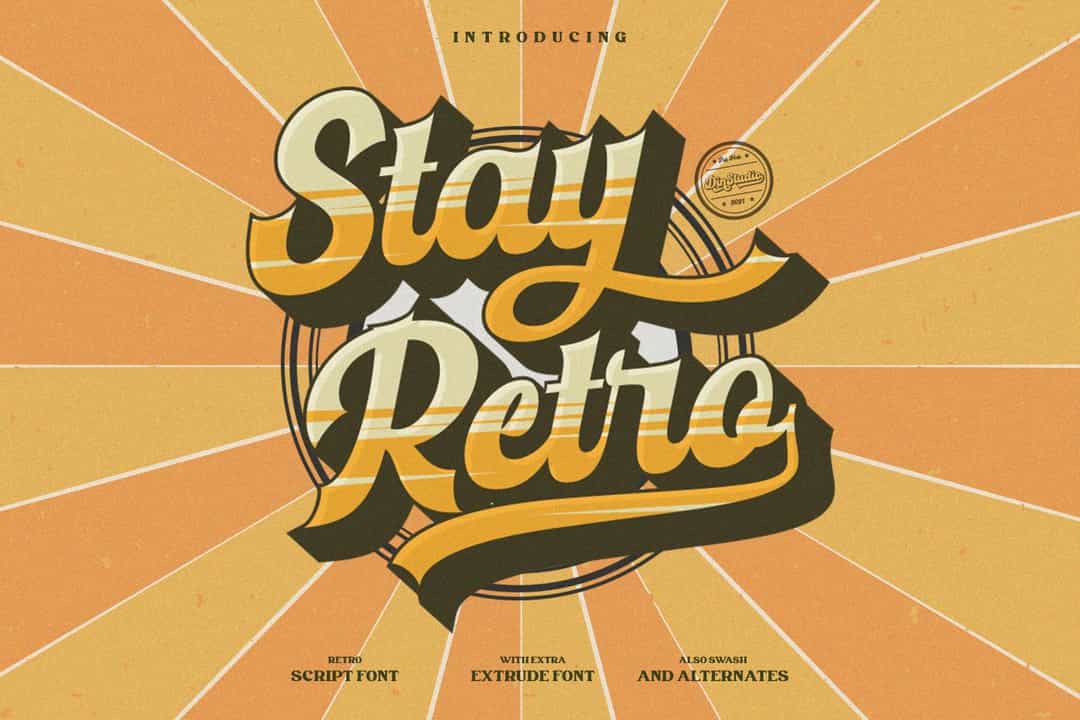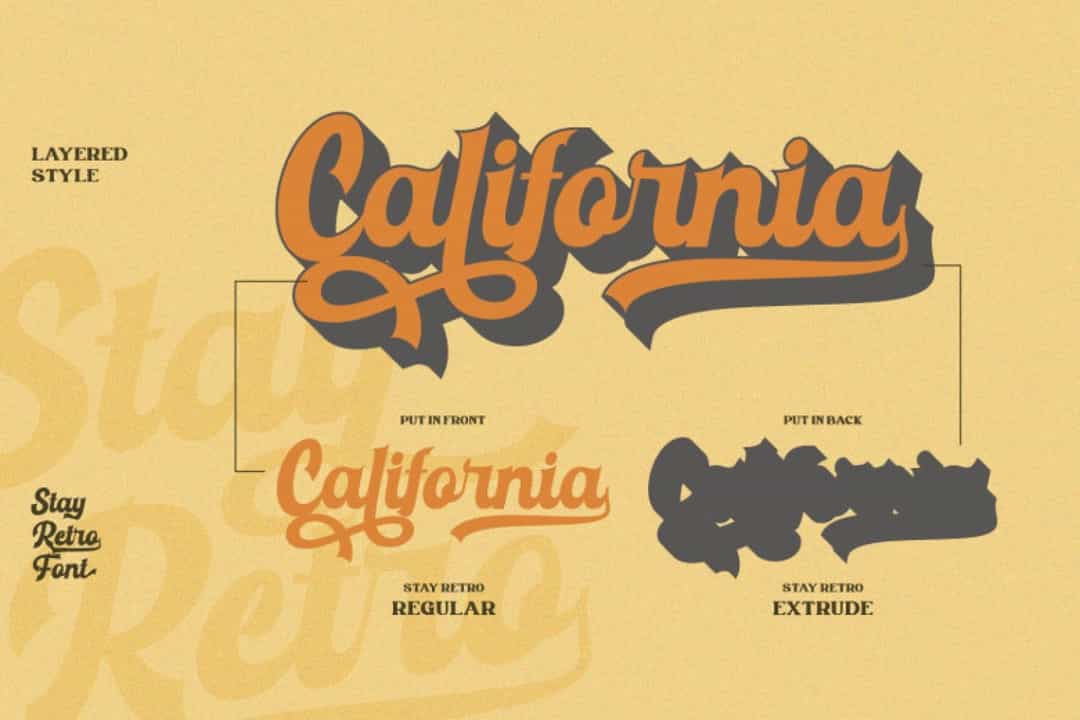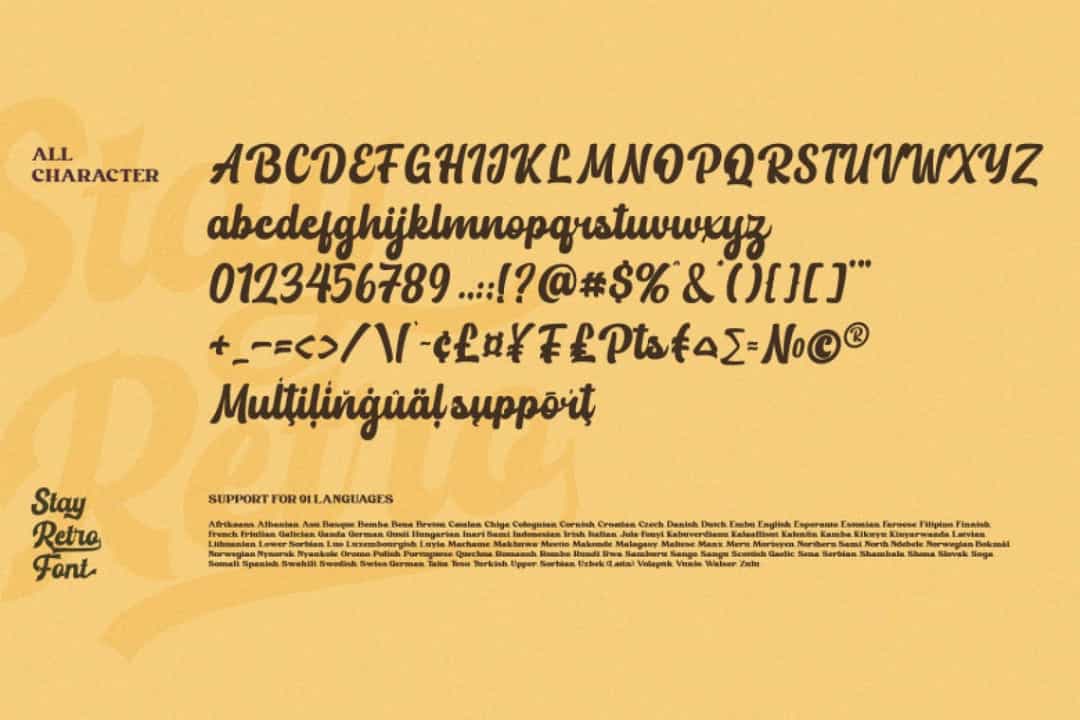
Stay Retro script font is an edgy bubble script typeface perfect for adding street style and humor. Create stunning printed quotes, attractive packaging or stunning T-shirts! Stay Retro is also great for creating amazing headings menus, logos and social media-related graphics that can reach a broader audience. Furthermore, Stay Retro provides multilingual options so your brand can reach more people than ever.